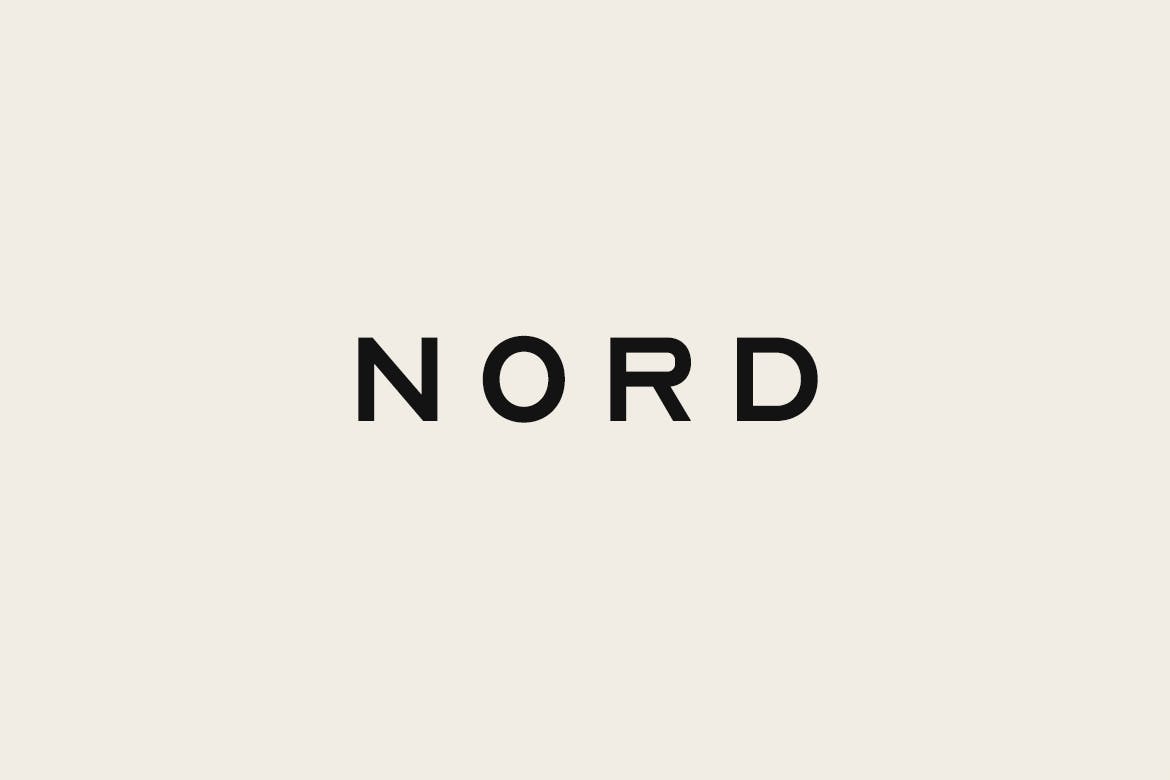
NORD - Minimal Display / Headline / Logo Typeface
The NORD - Minimal Display / Headline / Logo Typeface is perfect for clean corporate identities, minimalist brand logos, modern magazine headlines, sleek architectural signage, contemporary web headers, elegant packaging design, sophisticated business cards, progressive tech startups, refined editorial layouts, and premium lifestyle branding.
What makes the NORD - Minimal Display / Headline / Logo Typeface so exciting is its perfect embodiment of Scandinavian design philosophy with clean geometric precision that creates maximum visual impact through sophisticated simplicity. This exceptional typeface features pure minimalist construction, carefully balanced proportions, and refined geometric elements that establish an unmistakable contemporary aesthetic perfect for brands seeking clarity, elegance, and modern sophistication. The font's minimalist character and Nordic-inspired design make it an outstanding choice for projects requiring clean visual communication, professional credibility, and timeless modern appeal.
The NORD - Minimal Display / Headline / Logo Typeface family includes comprehensive weight variations, featuring Ultra-Light, Light, Regular, Medium, Bold, and Black options, plus condensed alternatives. Each variation maintains the signature minimalist appeal while offering different levels of visual presence and spatial efficiency, providing designers with complete flexibility for creating clean hierarchies and sophisticated brand systems.
This exceptional NORD - Minimal Display / Headline / Logo Typeface Free Download represents the ultimate minimalist typography solution for designers who value clean aesthetics and functional excellence over decorative complexity. Whether you're developing modern brand identities, creating clean editorial designs, or building sophisticated digital interfaces, this versatile minimalist font delivers outstanding results that resonate with contemporary audiences seeking clarity and refined simplicity.
The precise geometric engineering of NORD - Minimal Display / Headline / Logo Typeface demonstrates master-level minimalist typography craftsmanship, with each character optimized for perfect optical balance, exceptional legibility, and clean visual harmony. The font's comprehensive character set includes international language support, advanced OpenType features, mathematical symbols, and minimalist punctuation, ensuring seamless integration into global projects and professional workflows.
Expertly crafted for both digital and print minimalist applications, this outstanding font maintains perfect clarity and visual consistency across all media formats and sizes. From large-scale environmental graphics to detailed interface elements, NORD - Minimal Display / Headline / Logo Typeface performs flawlessly while preserving its distinctive minimalist character and contemporary Nordic sophistication.